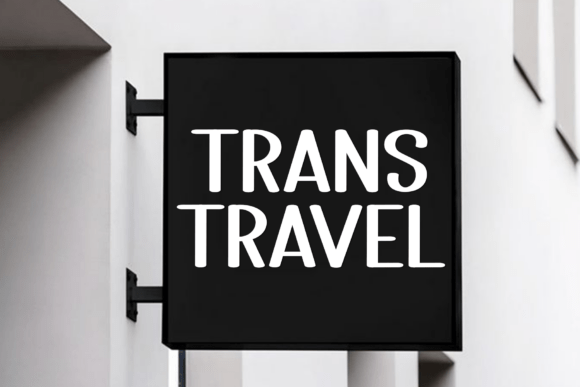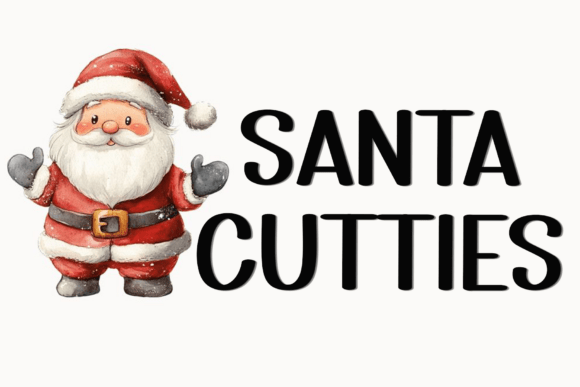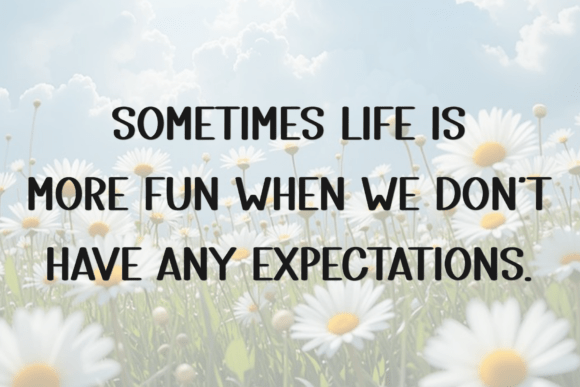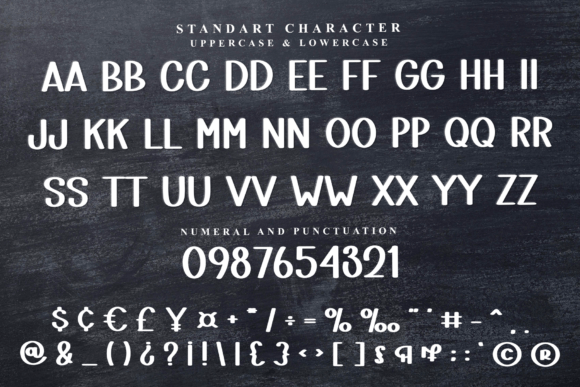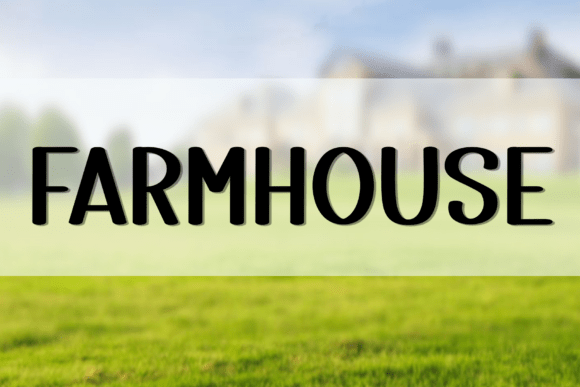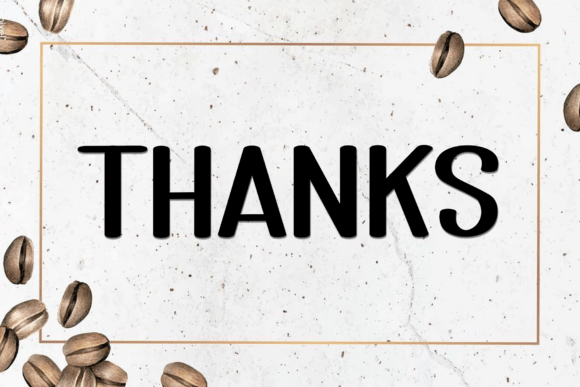
Introducing Building Block Font: A Festive and Merry Typeface for the Holiday Season
The holiday season is upon us, and with it comes the need for designs that capture the spirit of joy, cheer, and festivity. If you’re a designer or crafter looking for a typeface that embodies the magic of this special time of year, look no further than Building Block Font. This delightful font is designed to bring a touch of enchantment to your designs, making it perfect for greeting cards, gift tags, and holiday-themed projects.
A Festive and Whimsical Typeface
Building Block Font is a decorative typeface that exudes a sense of nostalgia and wonder. Its whimsical flair and decorative elements are reminiscent of childhood memories, making it an ideal choice for designers and crafters who want to create designs that are both festive and fun. Whether you’re creating holiday cards, gift tags, or social media graphics, this font is sure to add a touch of magic to your words.
Building Block Font is specifically designed with the holiday season in mind. Its cheerful and merry vibe makes it perfect for a wide range of holiday-themed projects, including:
- Greeting cards: Create festive holiday cards that will delight your friends and family.
- Gift tags: Add a personal touch to your gifts with custom gift tags featuring Building Block Font.
- Holiday-themed projects: From social media graphics to website headers, this font is perfect for any holiday-themed project.
Why Choose Building Block Font?
So why choose Building Block Font for your holiday designs? Here are just a few reasons:
- Unique and festive design: Building Block Font is a one-of-a-kind typeface that captures the spirit of the holiday season.
- Versatile: This font is perfect for a wide range of holiday-themed projects, from greeting cards to social media graphics.
- Nostalgic and whimsical: Building Block Font is sure to evoke memories of childhood holidays and add a touch of magic to your designs.
Tips for Using Building Block Font
Here are a few tips for getting the most out of Building Block Font:
- Experiment with different colors: Building Block Font looks great in a range of colors, from traditional holiday colors like red and green to more modern shades.
- Mix and match with other fonts: Try pairing Building Block Font with other fonts for a unique and eye-catching look.
- Use it for headlines and titles: Building Block Font is perfect for headlines and titles, where its decorative elements can really shine.
Building Block Font is a festive and merry typeface that’s perfect for the holiday season. With its decorative elements, whimsical flair, and PUA encoding, it’s an ideal choice for designers and crafters who want to create designs that capture the spirit of joy and festivity. Whether you’re creating holiday cards, gift tags, or social media graphics, Building Block Font is sure to add a touch of magic to your words. So why wait? Download Building Block Font today and let your typography shine with the magic of the holiday season!